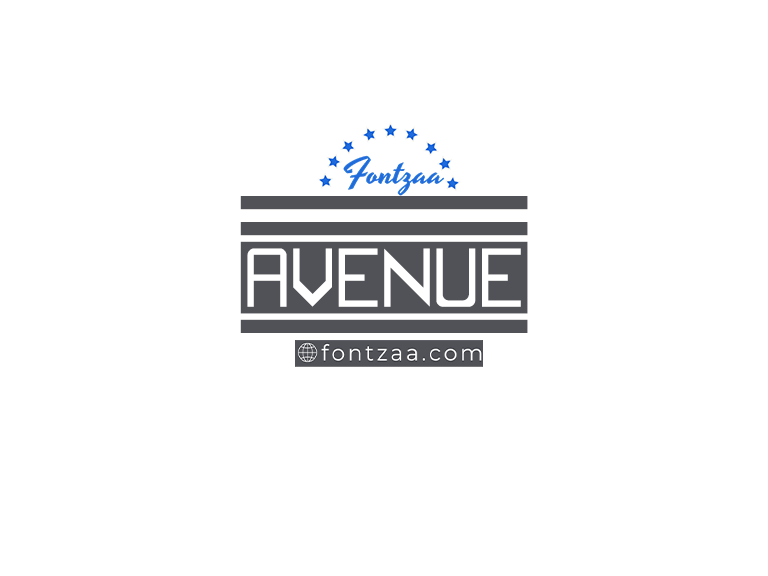
The Avenue Font is a modern typeface with clean, imposing lines—both soft and sleek; it’s professionally ideal for any suitable number of design projects both on and off the screen.
But that does not end here; one remarkable thing about Avenue is its versatility. The font comes in different weights and styles—Regular, Bold, and Italic, among others—thus giving a designer many angles to change or manipulate text as required. Avenue Typeface has options that can adapt to varied design aesthetics and requirements, be it a logo, brochure, or web content.
Besides its aesthetic appeal, Avenue Font remains legible, ensuring text is readable even at small sizes. The uniqueness of letter forms and space allows for high readability, whether it’s used for headlines, body text, or captions. The readability factor puts Avenue Style among the best lots for projects where clear communication is a top priority.
Moreover, Avenue Typeface has an infusion of modernity that brings a touch of elegance to all designs. Its modern sensibility makes it well-suited for branding initiatives, editorial layouts, and other creative endeavors where a sleek and polished aesthetic is desired. With the help of the Avenue family, one can get more visual encouragement along with looking professional and stylish.